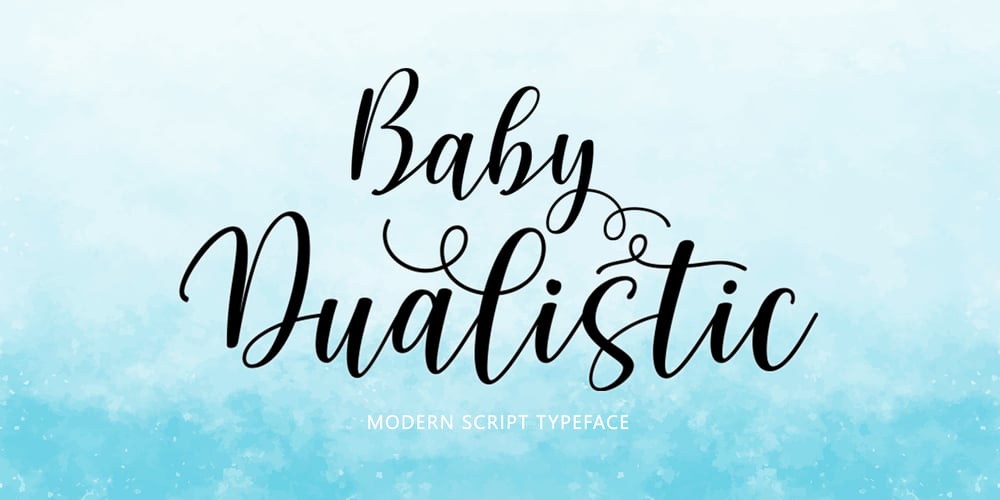
Baby Dualistic Font Family was designed by Muammar Kadafi and published by Attract Studio. Baby Dualistic contains 1 styles and family package options. Baby Dualistic is a beautiful, modern script font, with stylish and lovely. It comes with a handy set of opentype stylistic, use the beautiful ligatures, alternates and swashes. You need a program that supports OpenType features such as Adobe Illustrator CS, Adobe Photoshop CC, Adobe Indesign, Microsoft Word 2010. It is perfect for logo, greetings, branding, quotes, prints, invitations and crafting. All lowercase letters include alternates, beginning & end swashes, that makes the font look fabulous!